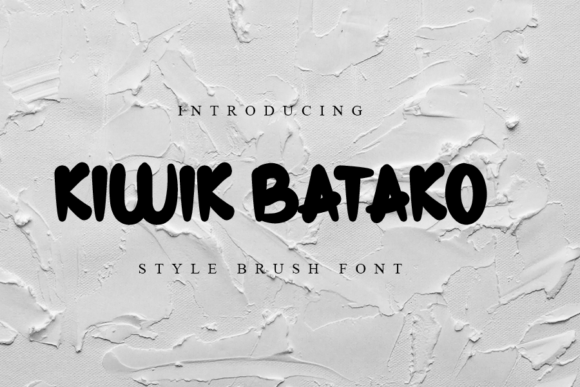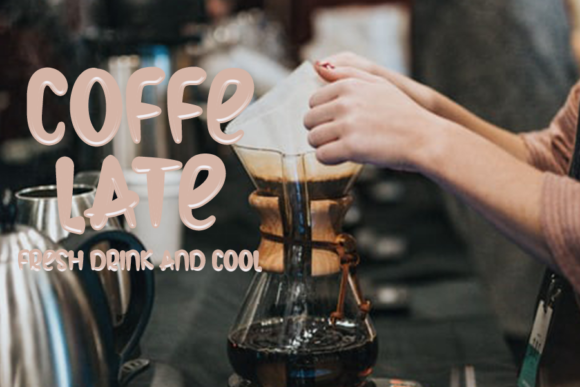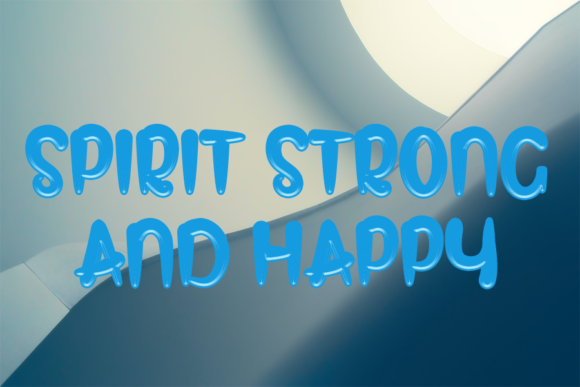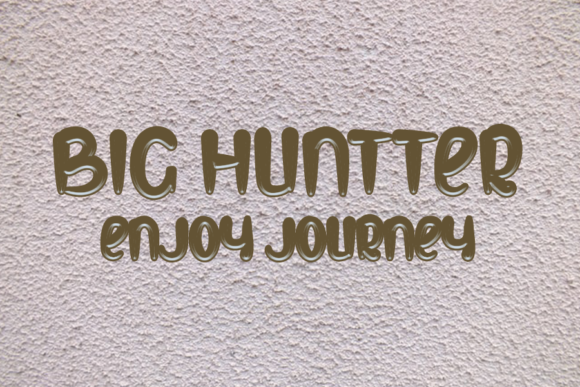
Kiwik Batako Font
About Kiwik Batako Font
Kiwik Batako is a casual, fun handwritten font, created by using a brush pen. Clean and a little bit quirky, this font is the perfect fit for all of your logos, branding, social media, and crafty DIY projects.